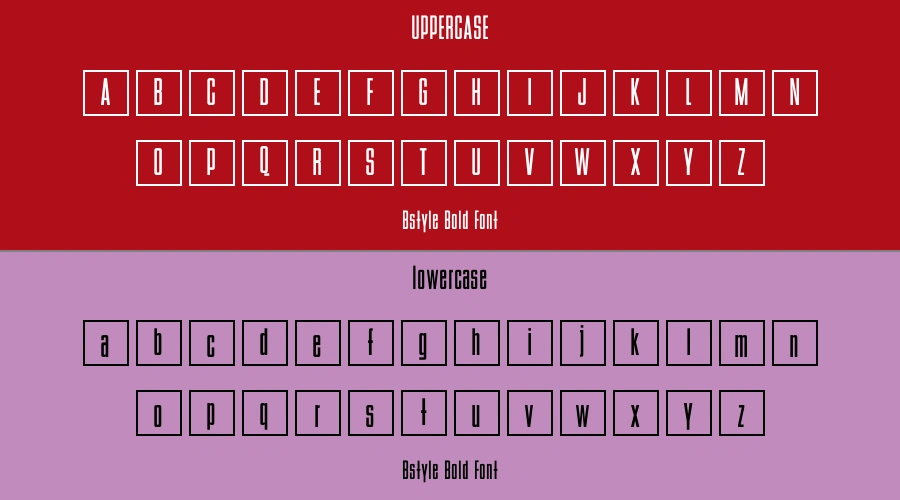
About Bstyle Bold Font
When typographic excellence matters most, Bstyle Bold Font delivers through its thoughtful blend of elegant curves and durability. Specially crafted for annual reports, it offers the distinctiveness and artistic value required for sophisticated design work. Every detail serves a purpose.
The character set showcases thoughtful details like ink traps alongside functional small caps. This proves especially valuable in historical documents, where small text clarity directly influences results. Particular attention was paid to character width and user perception during development.